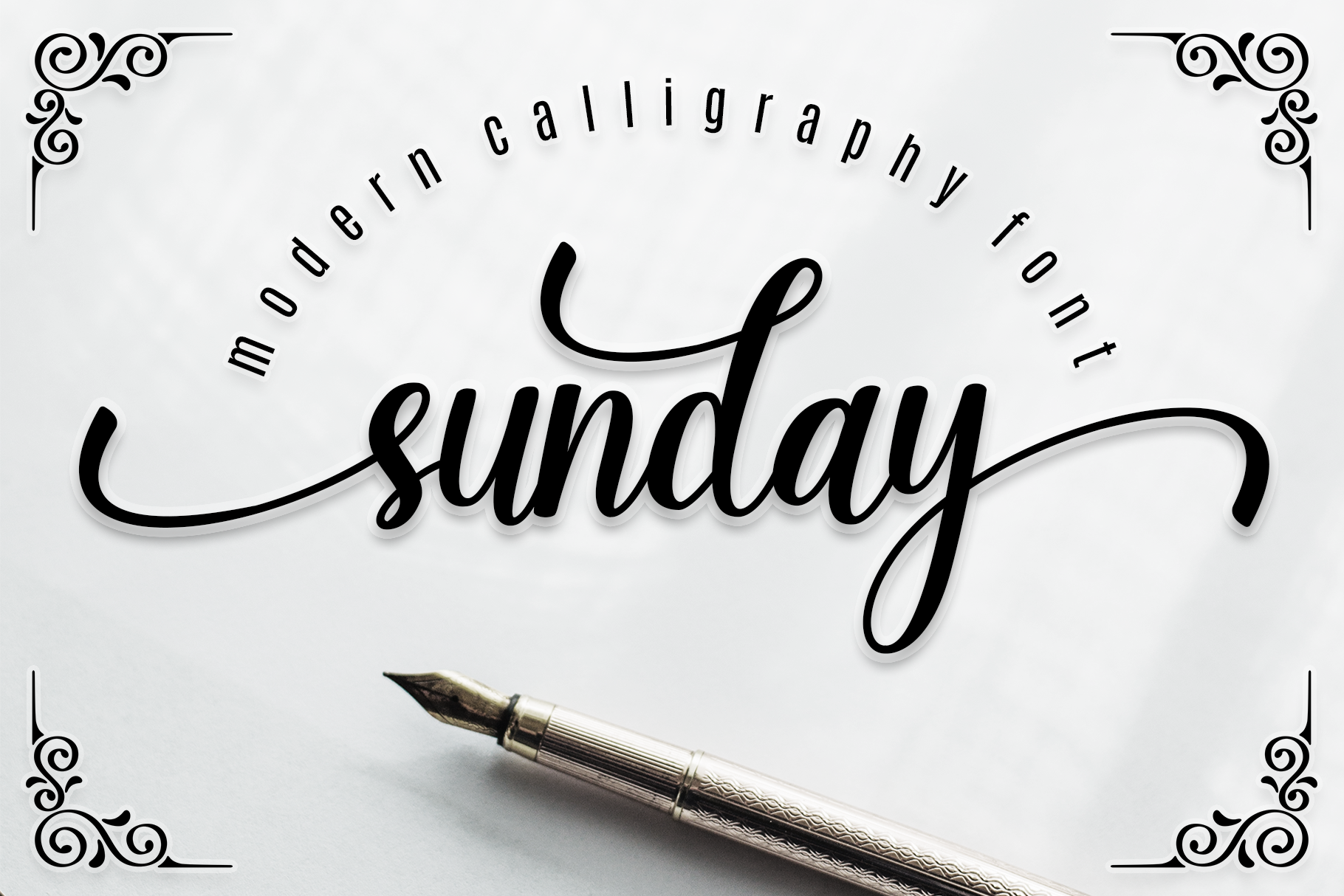
Sunday - Modern Calligraphy Font
Sunday is a modern calligraphy font that is graceful and elegant, with a luxurious style that emphasizes courage in every stroke. it's everything you need for a satisfying design! make sure you try and like it!